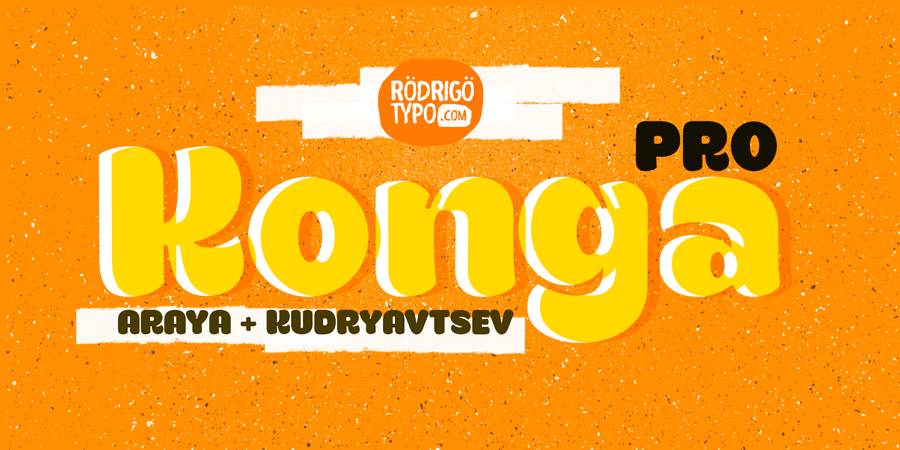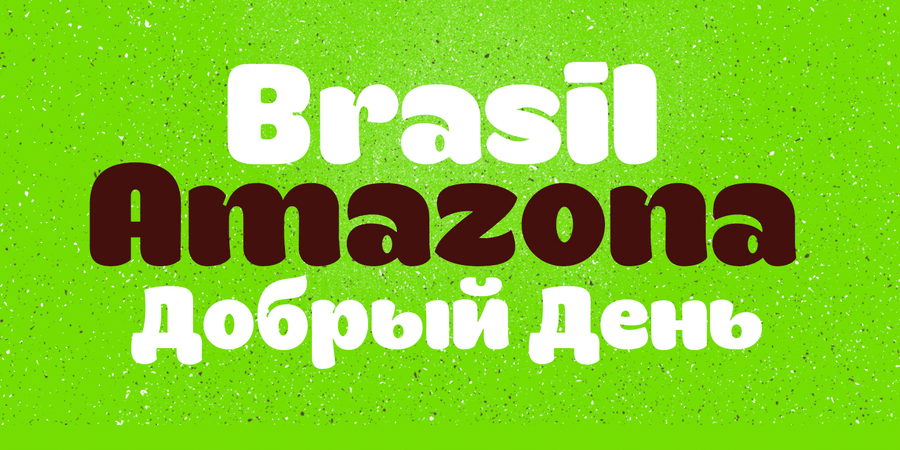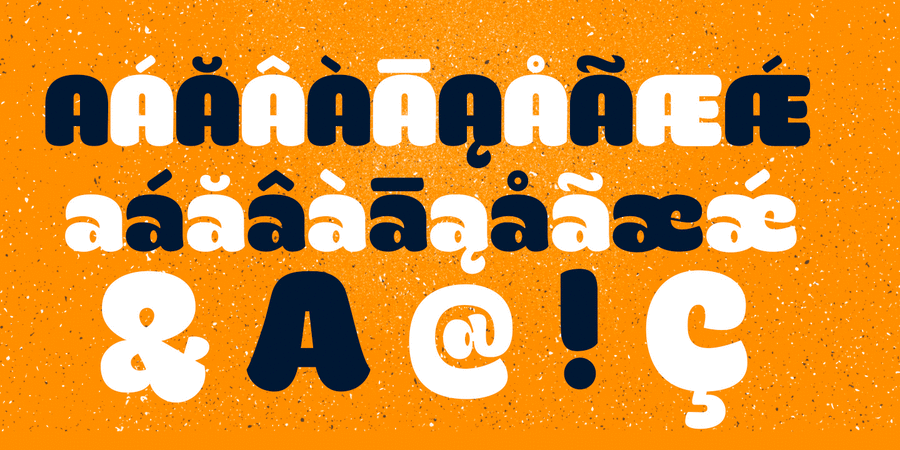
Konga is a typeface that was created in 2012. Konga Pro version is a redesign and now includes Cyrillic and alternatives. Designed by Rodrigo Araya Salas and Andrei Kudryavtsev in 2015.
cheerful, provocative, funny, friendly, good-natured, kind, glad, playful, affable, mischievous, restless, original, fresh, ripe, juicy, delicious, heavy, notable, splashy, children, naive, cartoonish, cute, bright, witty, home, summer, Soft, generous, lush, cozy, pleasant, alive, benevolent, smooth, family, festive, close-fitting, fat, cool, cutie, smiling, appetizing, sweet, happy, fruit, berry, abundant, plentiful, saturated, hot